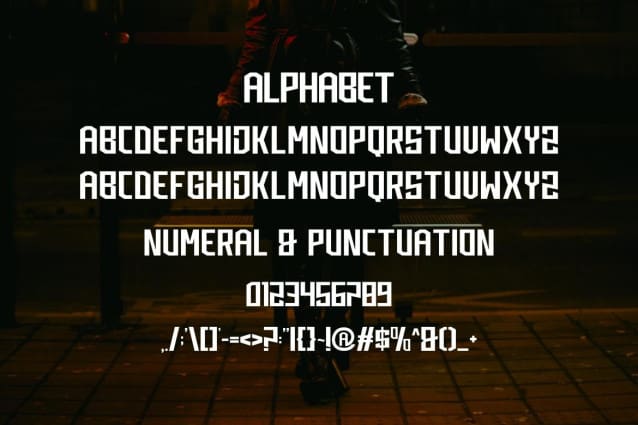
Grongs Display Font
Grongs Display Font, is a modern and simple font ideal for displaying titles, logos, branding, magazines, product packaging and invitations. Grooves feature clean lines and gentle curves give any project an extra touch of class